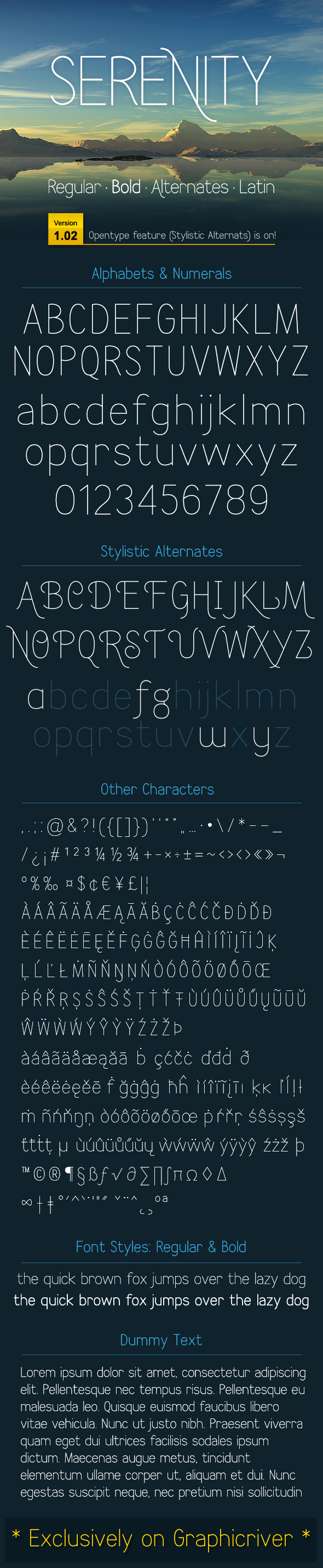
Serenity. a nice sans-serif typeface.
Created with 370+ glyphs to fulfill your design needs. Regular and Bold versions are included. Latin characters are available as preview image.